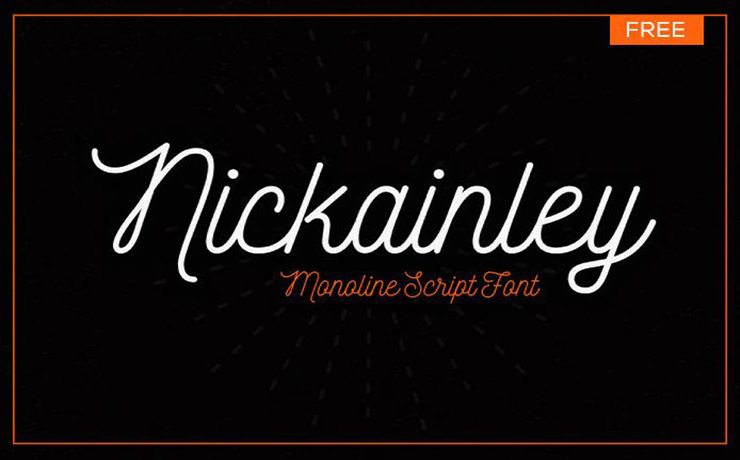
Nickainley Font is a monoline lovely script typeface is a handwriting font with a touch of classic and vintage. Ideal for fashion, posters, signages, product packaging, letterhead, labels, and print designs.
An Indonesian font foundry the “Seniors Studio” took charge of creating it and publishing it for the first time in March 2015.
This lovely typeface has a classic touch with vintage charm. The whole structure is made with the help of markers. That’s why it has a natural flow throughout the font family.
Every character has a unique structure that can be easily combined with other words in any text. And when these words come together, they make a beautiful pairing together.
“[Nickainley typeface has come in a single regular style along with Opentype features. This single style has 393 glyphs and 174 binary stored kerning pairs. Moreover, it also supports 89 global languages]”.
Designs made using this font look attractive without the hassle. Your designs look great when you start using Nickainley font.
- You can use this font for various purposes like luxury, fashion, logos, badges, wedding invitations, t-shirts, letterhead, signage, labels, news, posters, badges more.